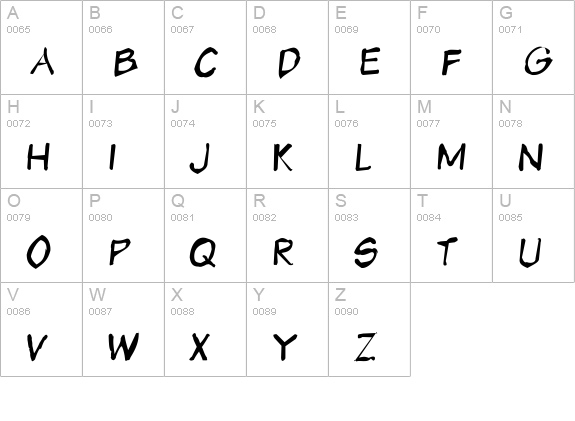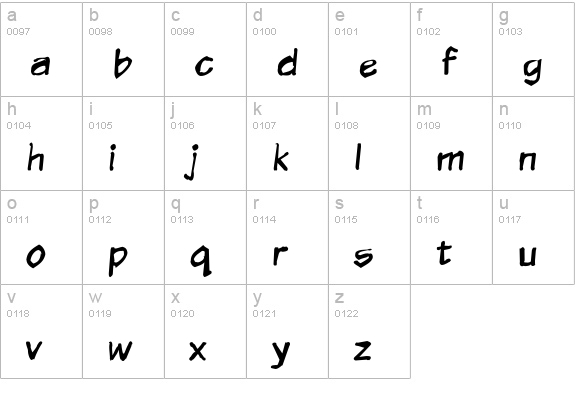
VTCSundayKomixKrumpled Font Details
VTCSundayKomixKrumpled font is a whimsical and playful typeface that adds a touch of fun and character to any design project. With its unique hand-drawn style, this font is perfect for creating eye-catching headlines, posters, logos, and more. The irregular, krumpled lines give the font a charming and slightly messy look, adding a sense of spontaneity and creativity to your designs. Each letter is carefully crafted to maintain readability while still capturing the essence of hand-drawn art. One of the best things about VTCSundayKomixKrumpled font is that it is freely available to download at FontsMarket.com. Whether you're a professional designer or a hobbyist, you can easily access this font without any cost. This makes it a fantastic choice for anyone looking to add a touch of whimsy and personality to their designs without breaking the bank. The wide range of characters, including uppercase letters, lowercase letters, numbers, and punctuation marks, allows for endless creative possibilities. Mix and match different styles and sizes to create a truly unique and captivating design. Whether you're working on a children's book, a comic strip, or a website that needs a playful touch, VTCSundayKomixKrumpled font is the perfect choice. Its free availability makes it an accessible option for designers of all levels, ensuring that anyone can add a touch of whimsy to their creations. So why wait? Head over to FontsMarket.com and download VTCSundayKomixKrumpled font today. Let your imagination run wild and bring your designs to life with this delightful and free typeface.